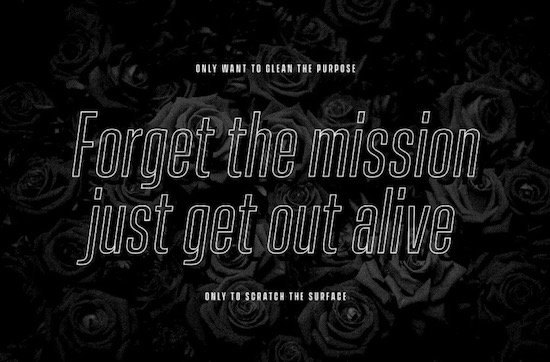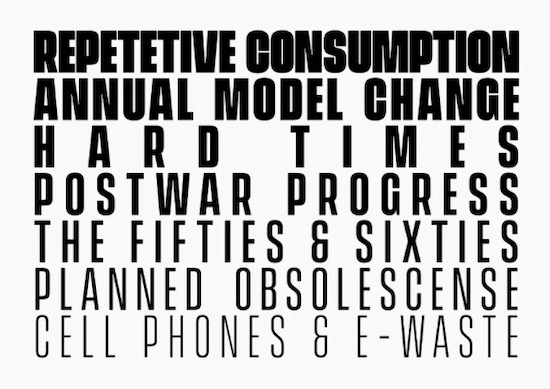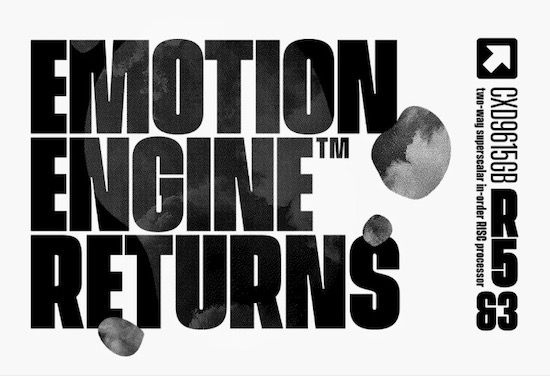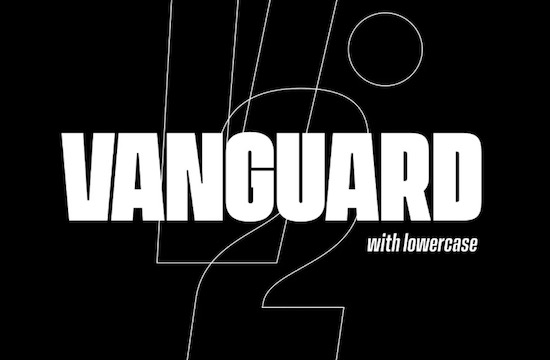
Vanguard CF is a premium high-quality Sans Serif Font that was designed and published by Connary Fagen. It takes references from different styles and multi-eras to create a unique flexible typeface. Created from hand sketches handcraft-drawn over several years. And it has eight weights that span a luxury Thin to a classy Heavy along with accompanying obliques. Version 2 adds a host of unique improvements, including revised kerning, improved letterforms, and two sets of versatile quotation marks, and consists of a full set of lowercase characters, making Vanguard even more versatile than before.
Using this Vanguard CF Font
Vanguard CF Font has amazing fonts for your contemporary designs. This basic font family is ideal for social media designs, logo designs, magazines, packaging, posters, advertising, branding, banners, headlines, websites, banners, and more. It features a neat and friendly aesthetic that can help your project appear more unique, and serene, and grab the attention of the audience.
Vanguard CF Sans Serif Font